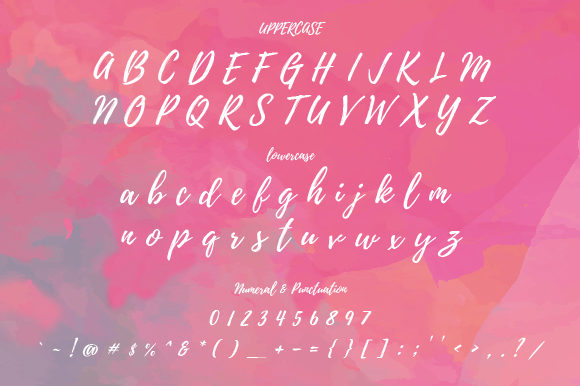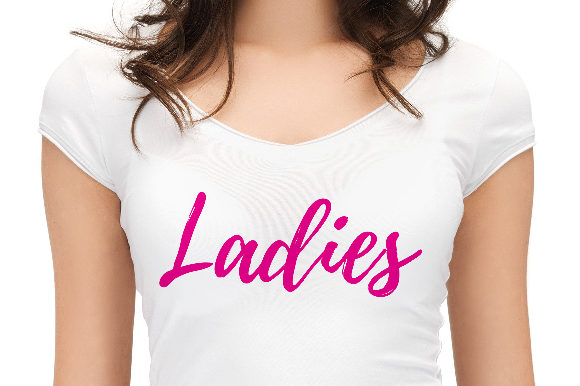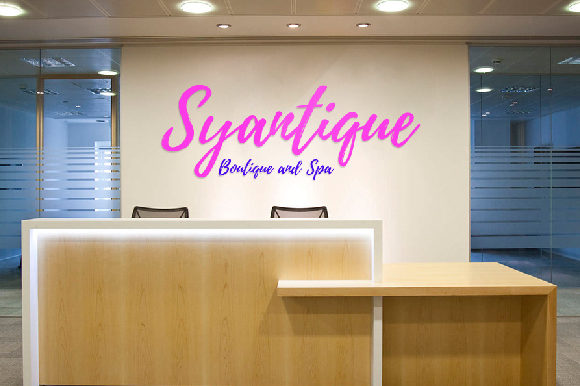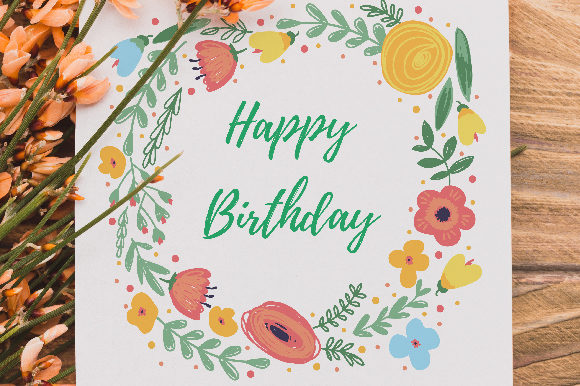
Vella Font
About Vella Font
The Vella is an amazing calligraphy script. It has a modern style and will add a natural feel to your designs.
It can be used for various purposes, such as headings, signature’s, logos, wedding invitations, t-shirts, letterheads, signage’s, labels, news, posters, badges, and much more!